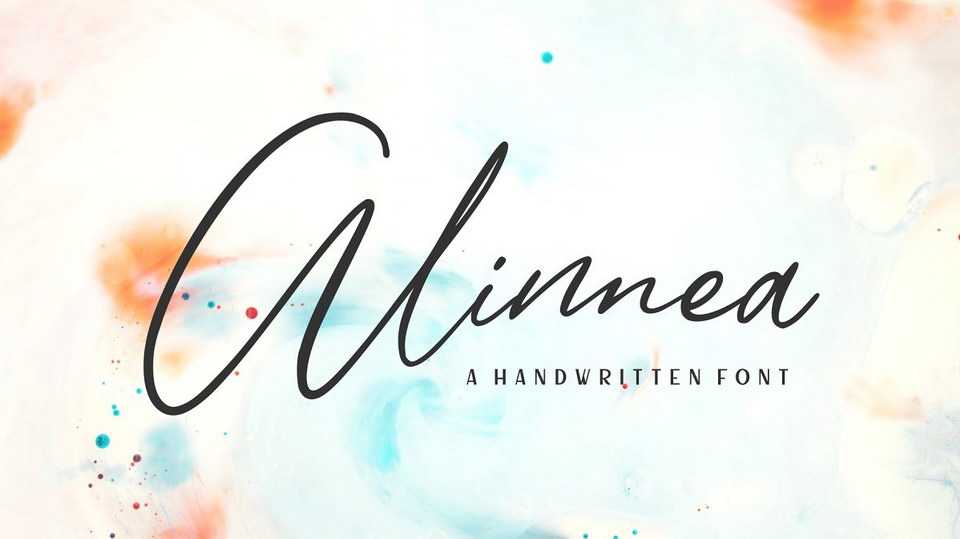
Download Alinnea font, a natural signature script with free flow. Alinnea script is perfect for logo, invitation, stationery, wedding designs, social media posts, advertisements, product packaging, product designs, label, photography, watermark, special events or anything.